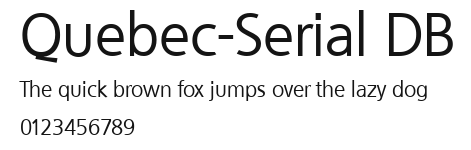
Quebec-Serial DB Preview
• Font Name: Quebec-Serial DB
• Full Font Name: Quebec-Serial-Regular DB
About Quebec-Serial DB.ttf
Quebec-Serial DB.ttf is a modern, elegant sans-serif font designed for ultimate readability and visual harmony. Perfect for branding, headlines, web design, and print materials.